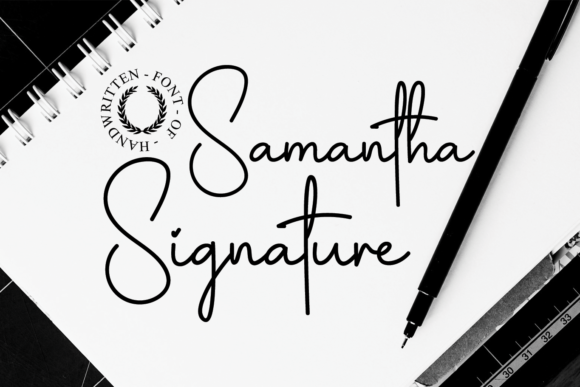
Introducing Samantha Signature Font, the perfect choice for those in search of the best font for their resume website. Created by the talented team at Behind the Ink, this script font family is simply breathtaking.
Samantha Signature Font exudes elegance and sophistication with its flawless calligraphic strokes. It's a versatile font that's perfect for any creative project you may have, whether it's designing wedding invitations, greeting cards, or logos. The font family comprises a variety of weights and styles, making it perfect for creating an impactful visual hierarchy on your website.
This font is not just visually stunning, but it also delivers a message of professionalism and class. Your website will stand out from the competition with its unique personality and distinctive design elements. Samantha Signature Font is the perfect complement to any website that wants to make a lasting impression.
Whether you're a designer or a business owner, this font is a must-have. It will elevate your website to a whole new level and make it more memorable for your audience. It's perfect for those who want to convey a personal touch while maintaining a professional demeanor.